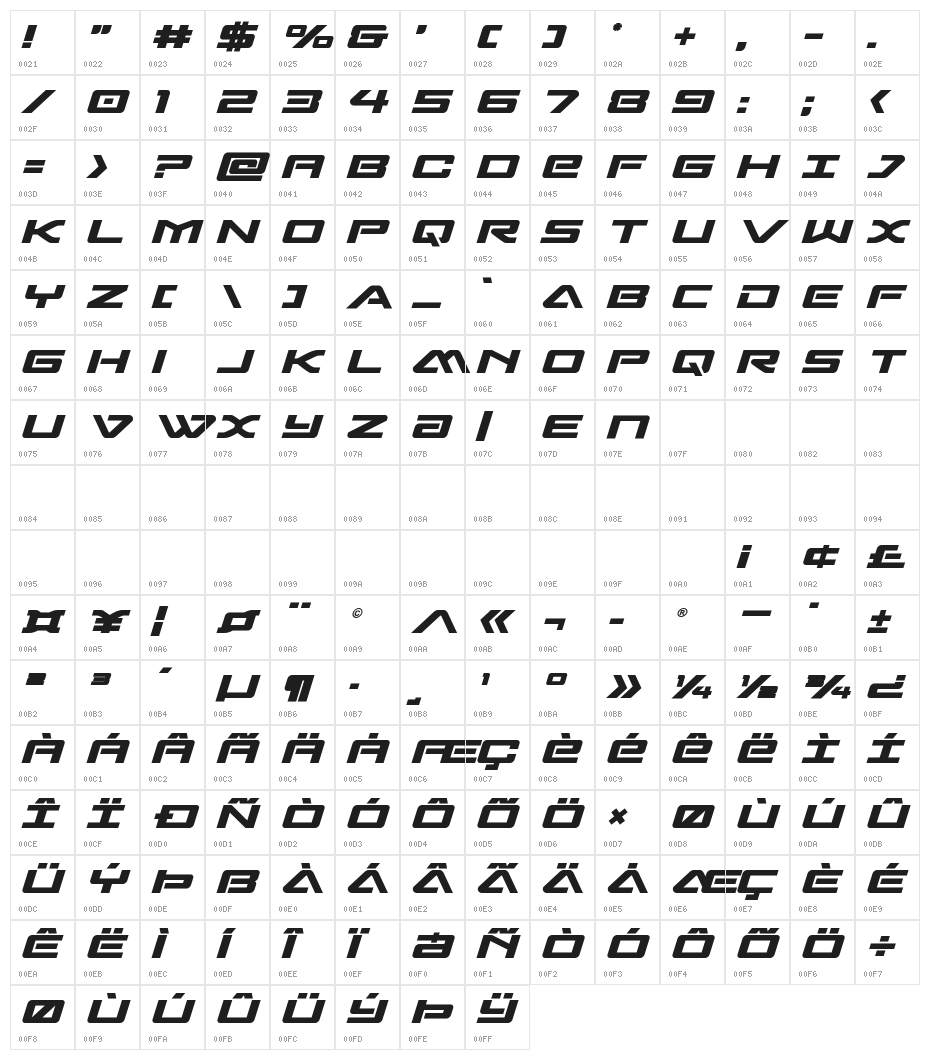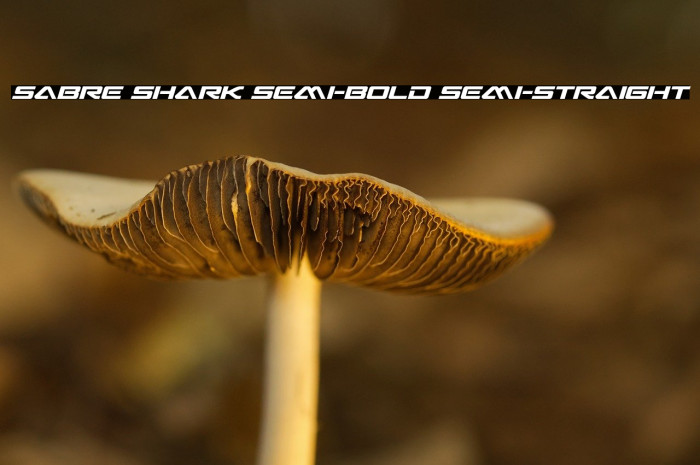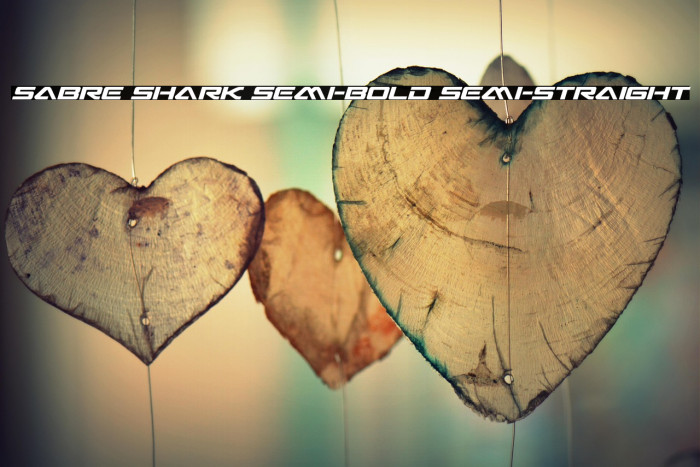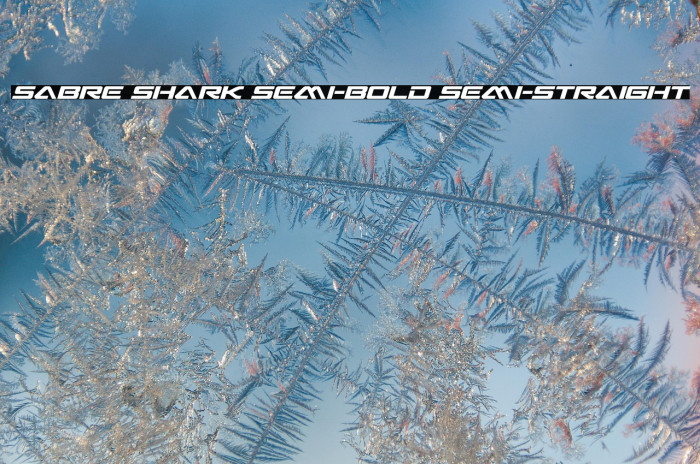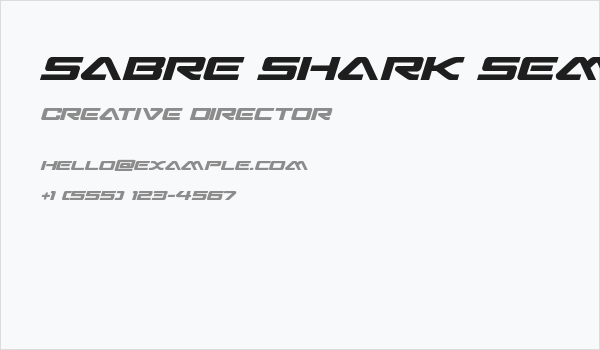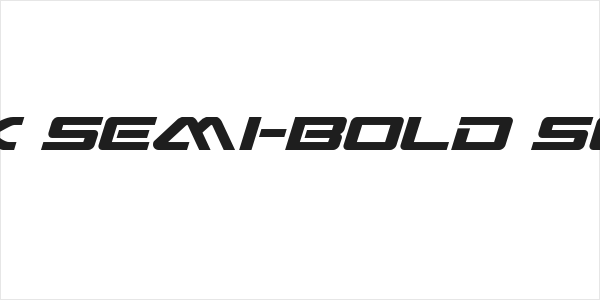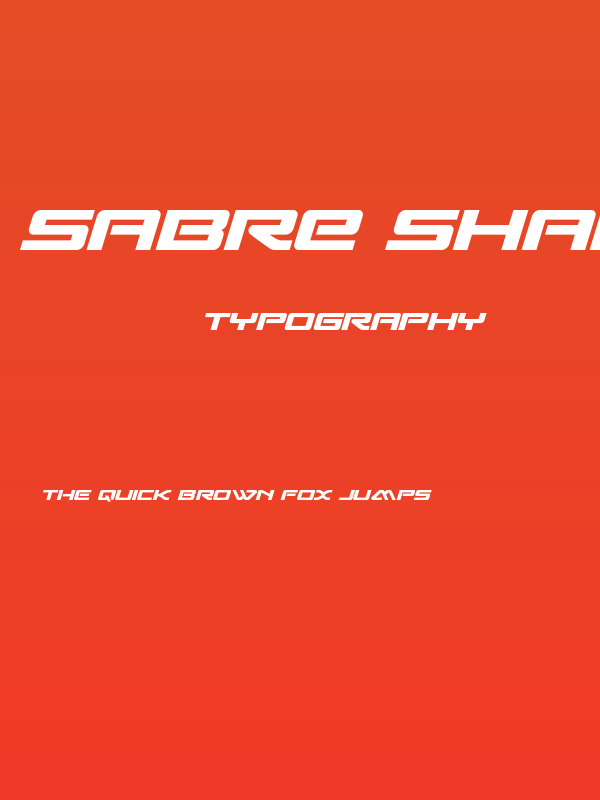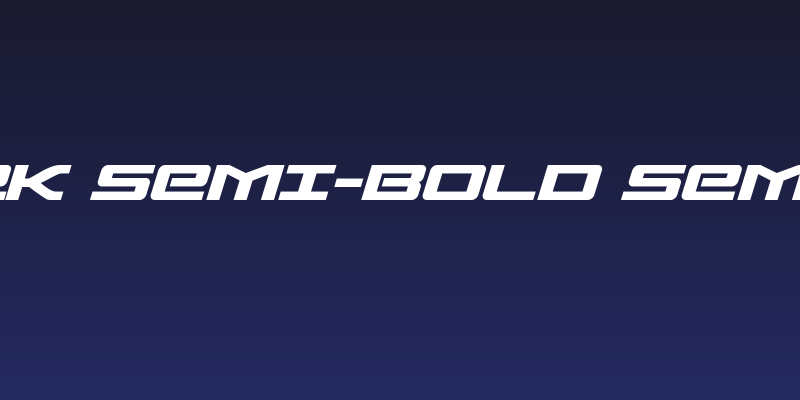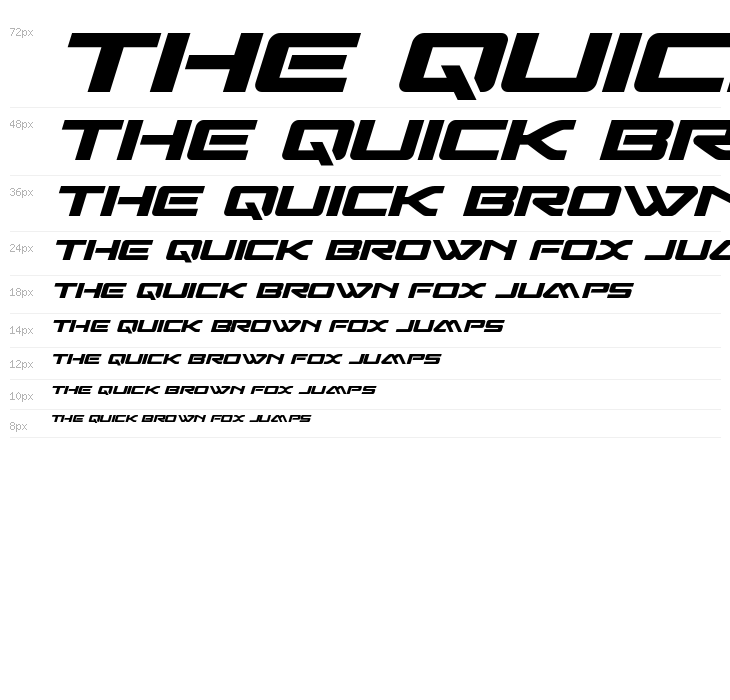
Sabre Shark Semi-Bold Semi-Straight Font
Sabre Shark Semi-Bold Semi-Straight Description
This font features a bold and dynamic design with a futuristic flair. The characters are angular and slightly slanted, giving a sense of motion and speed. The strokes are thick and consistent, providing a strong visual impact. The overall appearance is sleek and modern, with a distinct geometric style that makes it stand out. The numbers and special characters maintain the same boldness and angularity, ensuring uniformity across all glyphs. This font is ideal for projects that require a modern and edgy look.
| Use Case | Logos, Headlines, Branding |
| Proposed Projects | Ideal for technology branding, sports team logos, video game titles, and automotive advertising. |